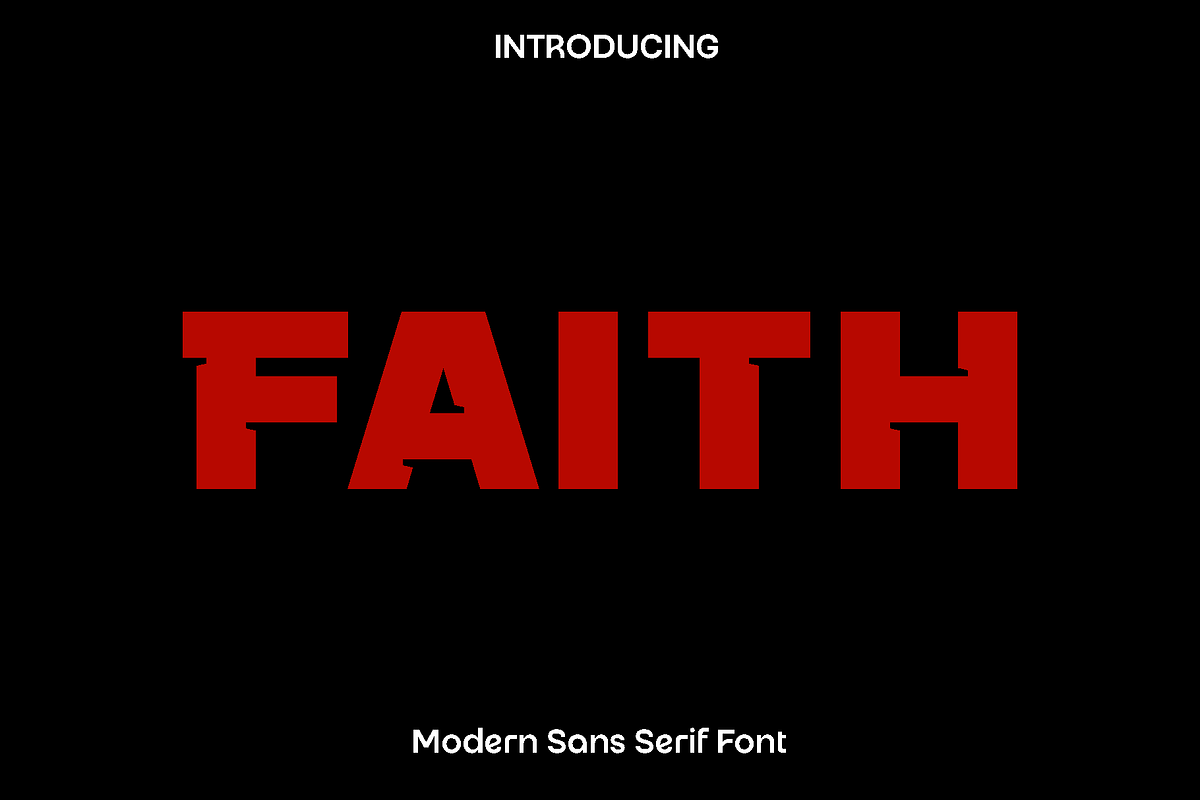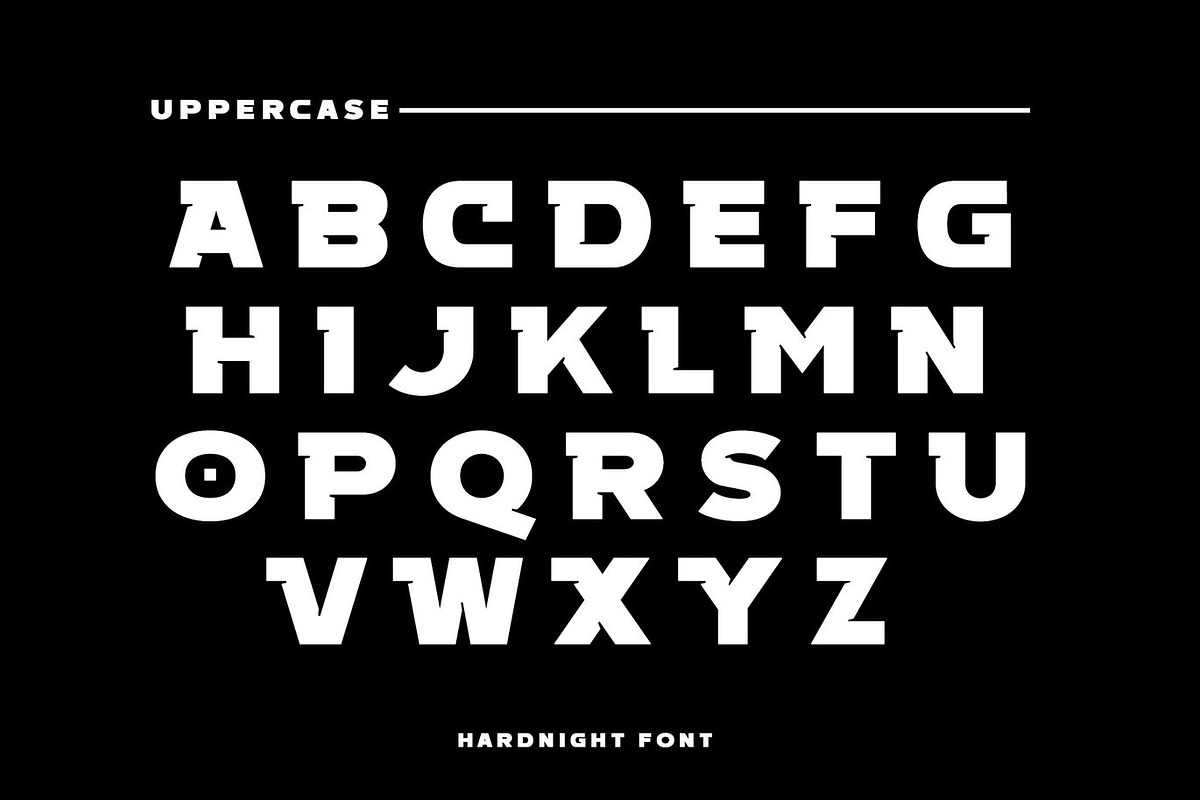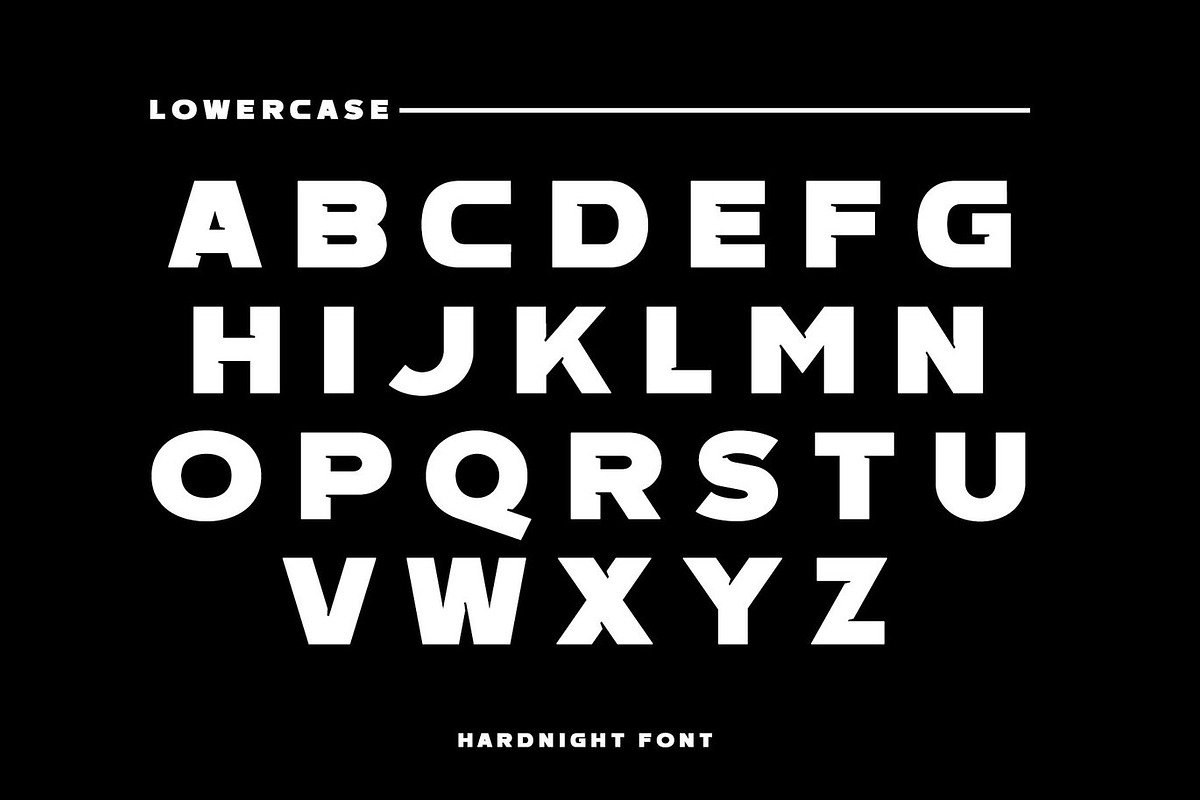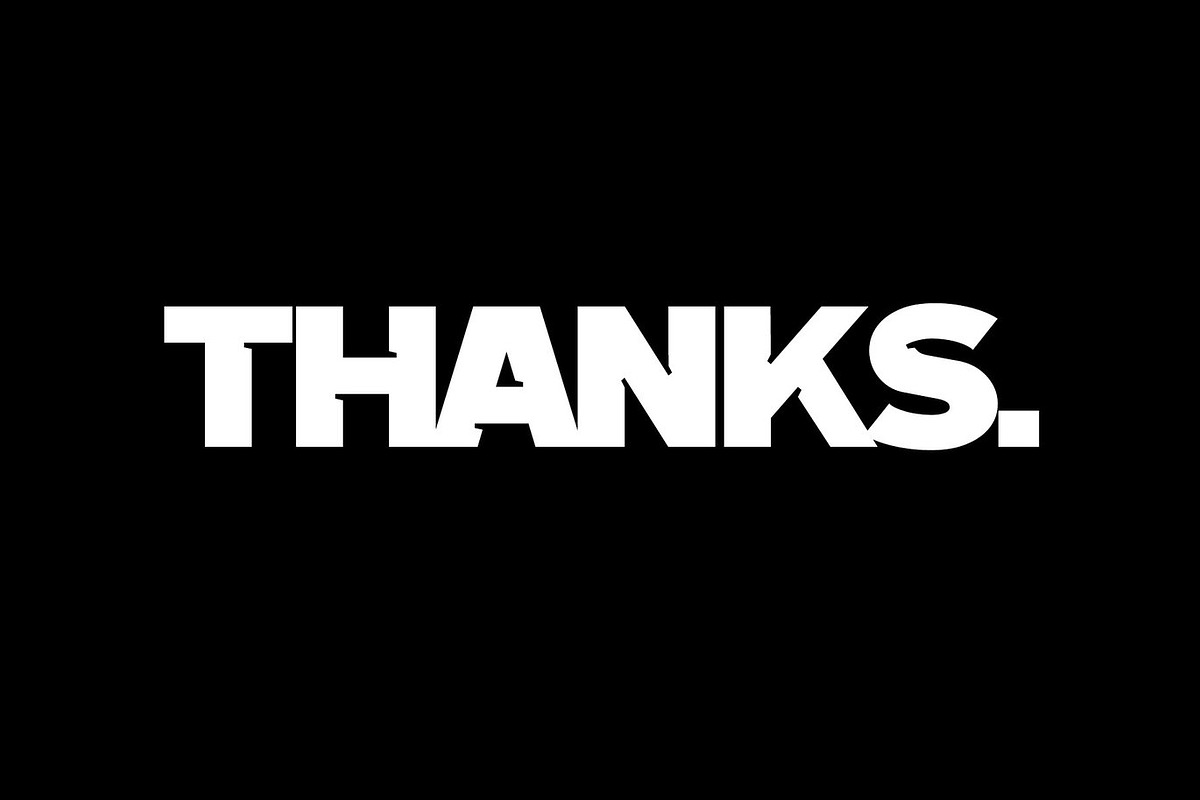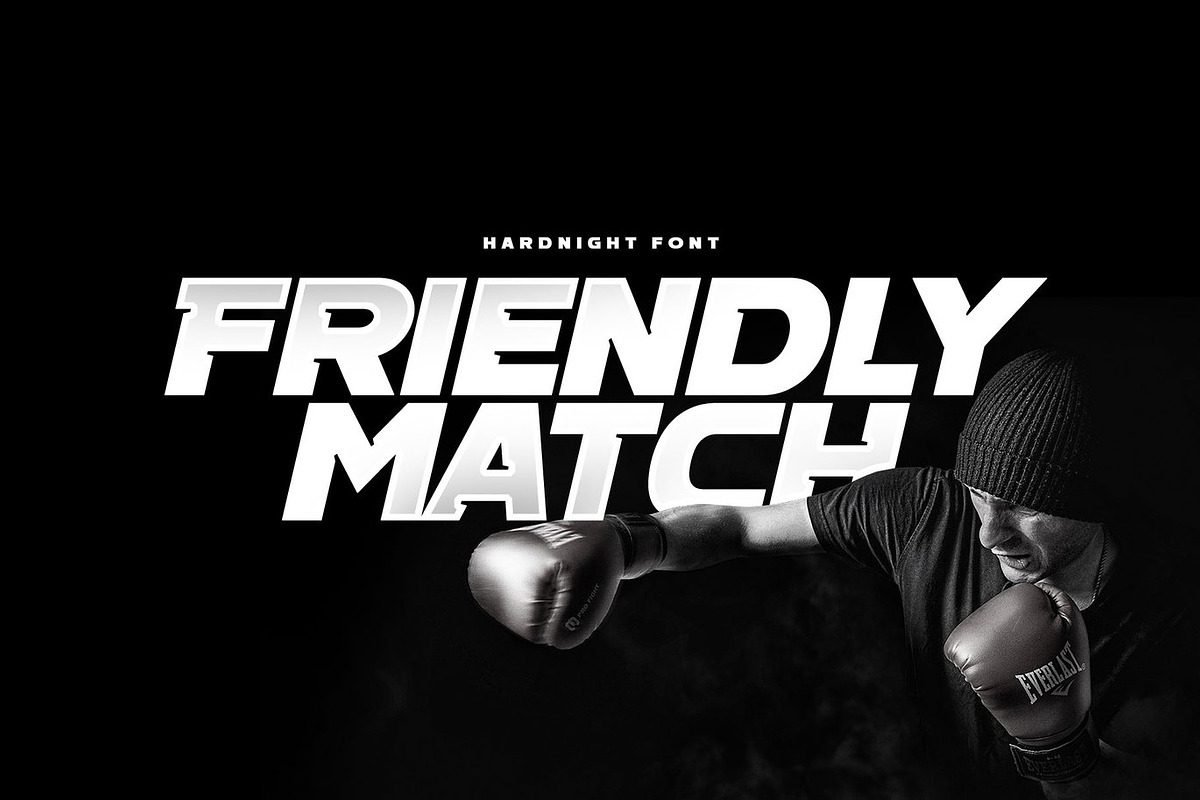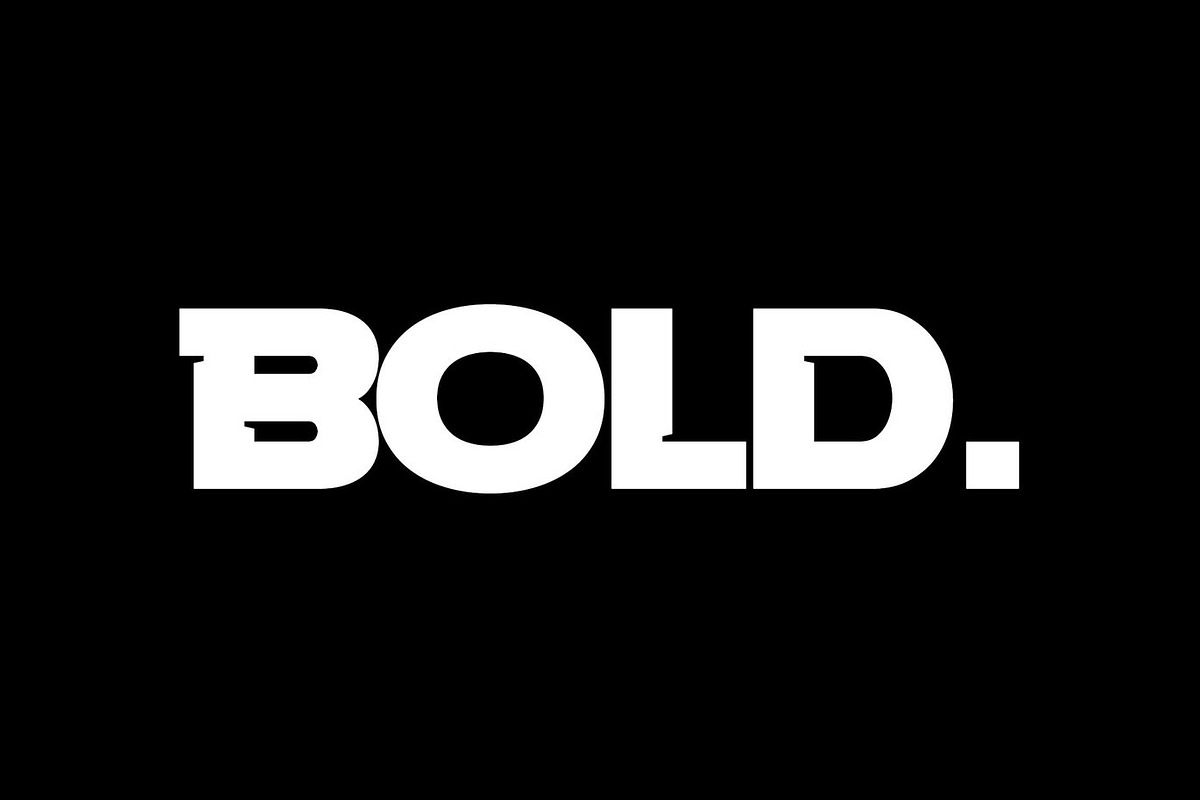
Faith - Modern Sans Serif
Faith is a modern display font designed to express strength, elegance, and clarity in every letter. Created with a vision of refined simplicity, Faith combines clean lines with confident shapes to produce a typeface that feels both powerful and graceful. Its balanced structure and contemporary style make it an ideal choice for designers who want to create bold yet sophisticated visuals.
Inspired by modern branding and timeless minimalism, Faith brings a sense of confidence and purpose to your work. It shines beautifully in headlines, logo design, editorial layouts, social media graphics, and premium packaging. Whether you are crafting a strong brand identity or a stylish visual campaign, Faith delivers a polished look that captures attention while maintaining a refined aesthetic.
Faith is versatile and highly functional, allowing it to adapt across a wide range of creative applications. From bold titles to clean typographic compositions, this font enhances readability while adding a distinctive character. Its modern elegance makes it suitable for both digital and print projects, giving your designs a professional and memorable finish.
Faith Font Features:
• Uppercase and lowercase characters
• Numerals and functional symbols
• Clean and elegant letterforms
• OpenType features
• Multilingual support for various languages
Bring confidence, elegance, and modern style into your designs with Faith, a typeface crafted to make a lasting impression.